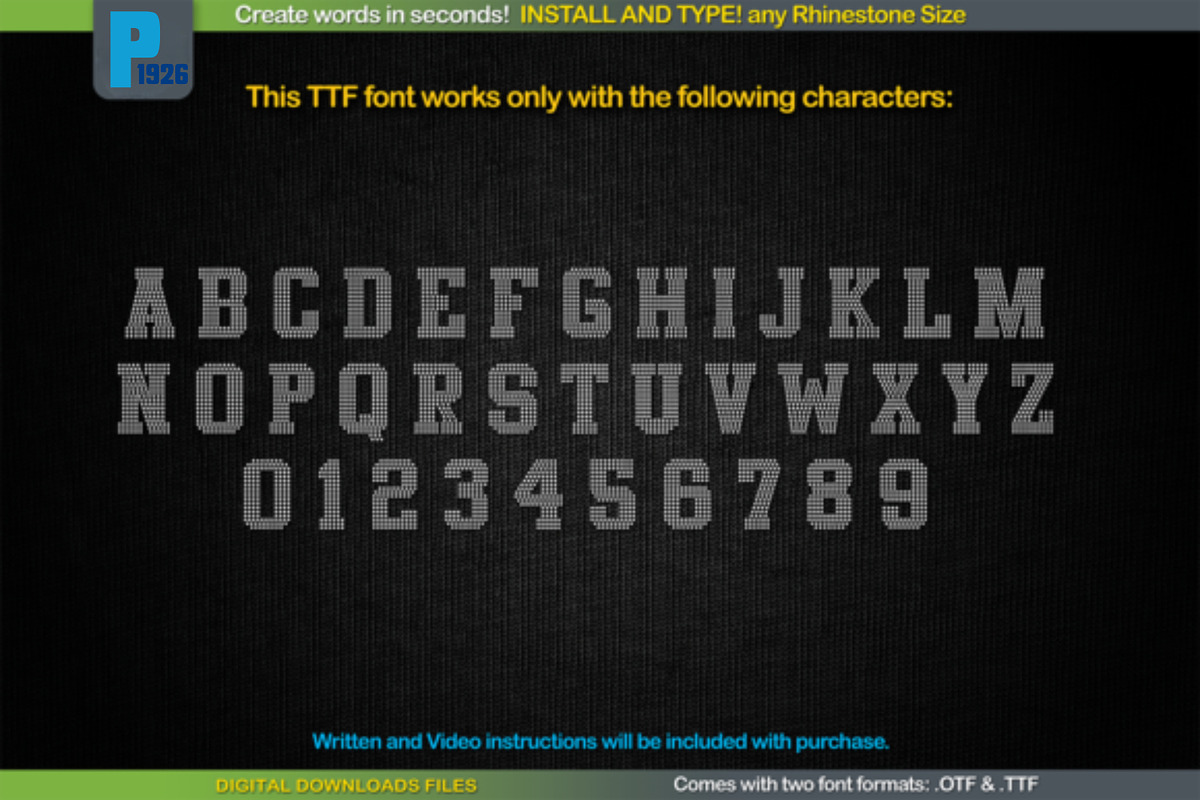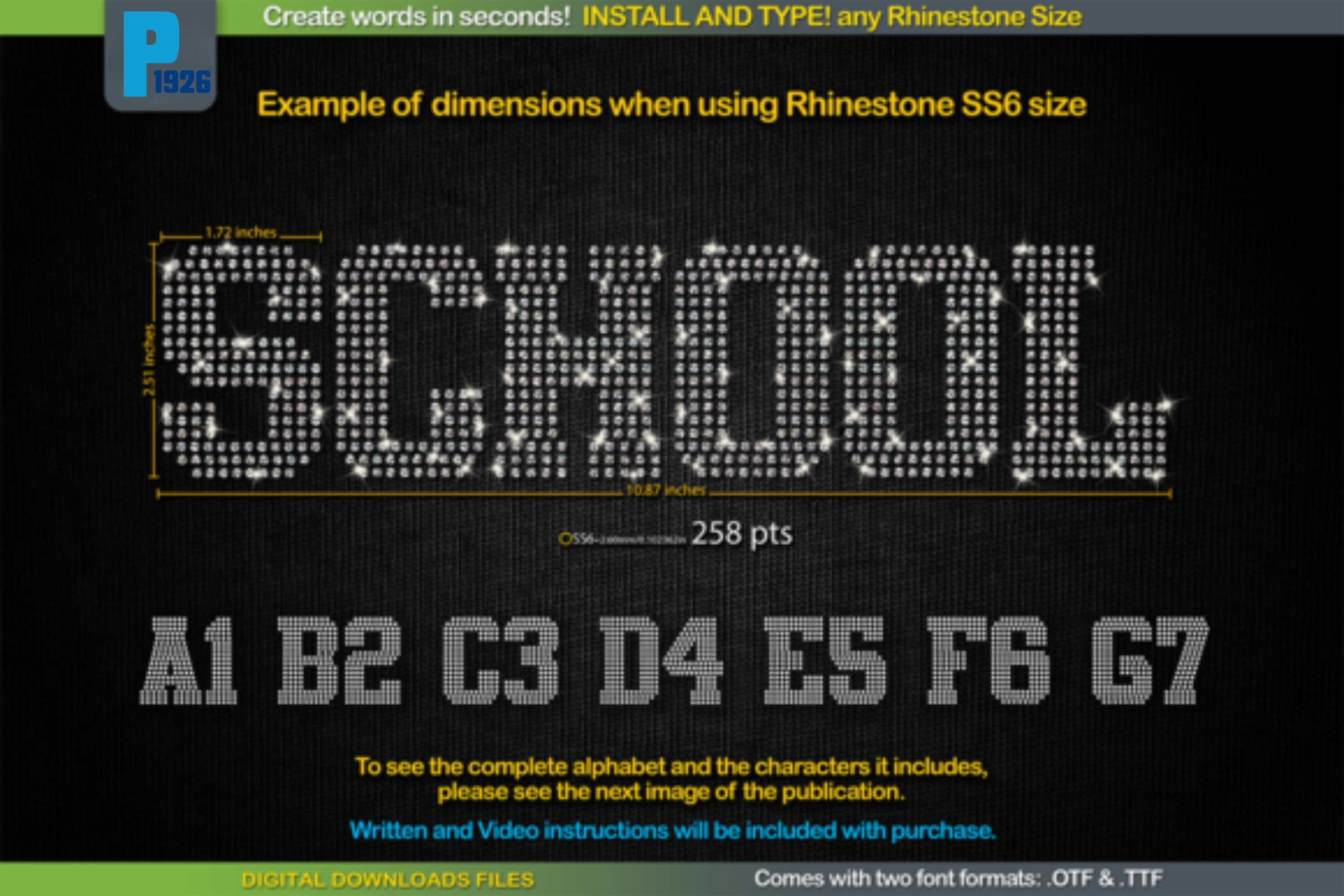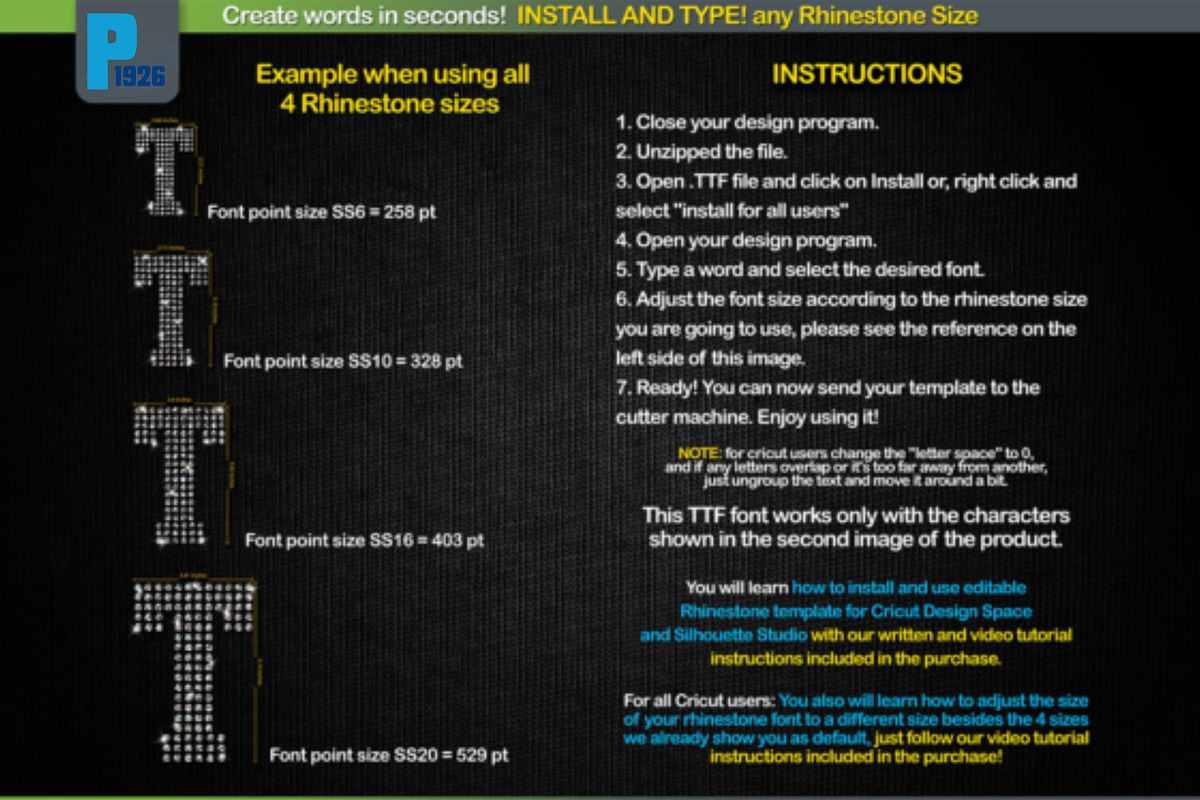
RS02 Atletico TTF RHINESTONE Font
Get the perfect TTF RHINESTONE Template font, just install and type any word using any Rhinestone size you want and create words in seconds. Get yours today!
This is a very cool Rhinestone Template TTF will let you create words in seconds! simply download, install, and type… It’s that easy! In addition, when you type, each letter is filled perfectly with rhinestones or arranged and trapped for heat transfer vinyl so you can conveniently customize your designs with text. SEE the size of each letter in the images of the publication. This TTF RHINESTONE Template font comes in two font formats. (.OTF & .TTF). Use this to make rhinestone T-shirts, heat transfer vinyl, and more.
Simply download the TTF RHINESTONE Template font and install it, type whatever you like and that’s it! In addition when you type each letter is filled perfectly with rhinestones or arranged and trapped for heat transfer vinyl so you can conveniently customize your designs with text. TTF RHINESTONE Template – Crystal Rhinestone sports Hotfix Transfer – Typeable Tff Font for Cricut and Silhouette Studio by ArtWorks Designs – D196